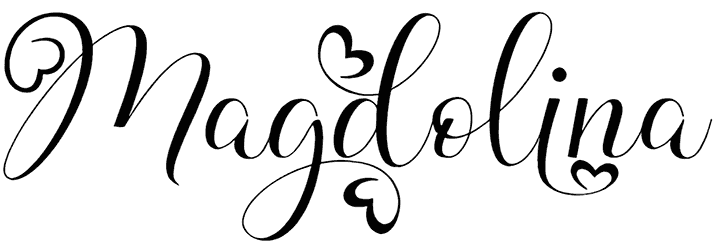
Magdolina Font
It’s time to spin the letters and put the love vibe into words. Magdolina, as cute calligraphy font, is able to make your design memorable and admirable. This heart font is one of the most attractive options for lots of designs with happy themes for instance flyers, handwritten quotes, apparel, mugs, and sundries. Get started now and play with this little sweety.
Magdolina is a romantic and fashionable script font. It looks ravishing on wedding invitations, thank you cards, quotes, greeting cards, logos, business cards and every other design which needs a customized touch.